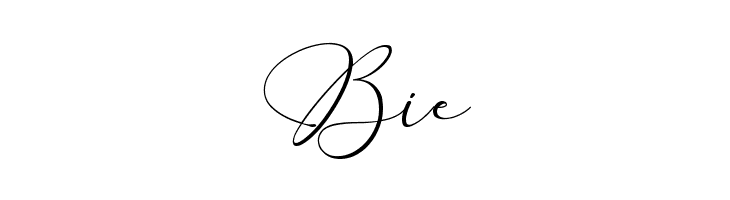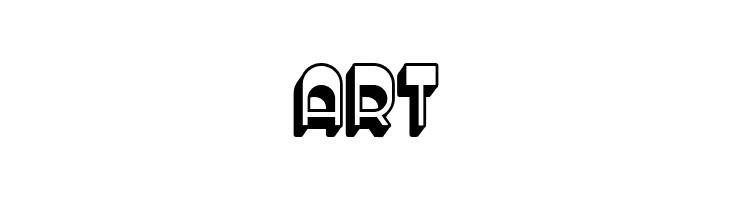
• End of Proof
A geometric, block-style font with a modern and minimalist aesthetic.
• Endless Wall
A bold, playful font with dynamic, patterned characters.
• England Reality
An elegant script font with flowing, ornate cursive letters.
• Enough Filled Regular
A bold, geometric font with a filled, 3D appearance and sharp angles.
• Enough Hollow Regular
A bold, hollow, 3D-effect font with a modern and dynamic style.
• Enough Light Regular
A bold, geometric font with a 3D effect and textured grid pattern.
• Enough Regular
A bold, 3D geometric font with shadow effects and inline details.
• Enriqueta-Bold
A bold serif font with a classic yet modern design, ideal for impactful text.
• Enriqueta-Regular
A modern serif font with elegant, readable letterforms and versatile design.
• Enthusiast Behavior
A lively and expressive handwritten font with fluid strokes.